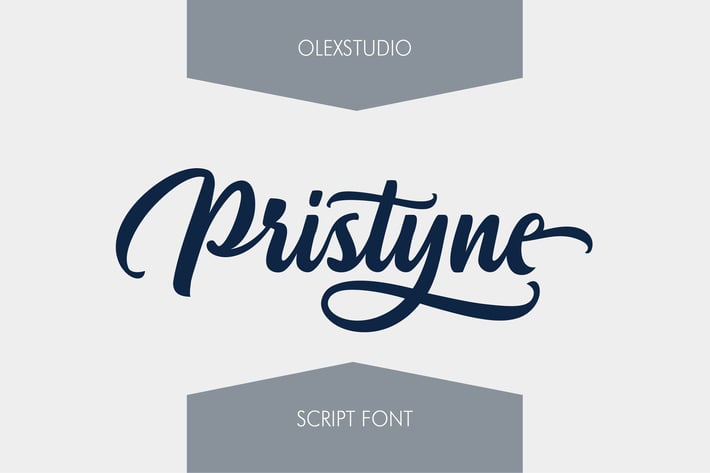
PRISTYNE - Script Font
PRISTYNE Script is a beautiful Script font Typeface, This Font will look gorgeous on all your designs, book, branding materials, logo's, t-shirt, poster, baby fashion product, comic, quotes and all project design other.